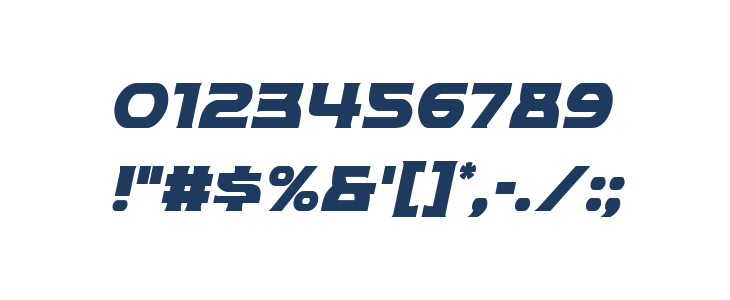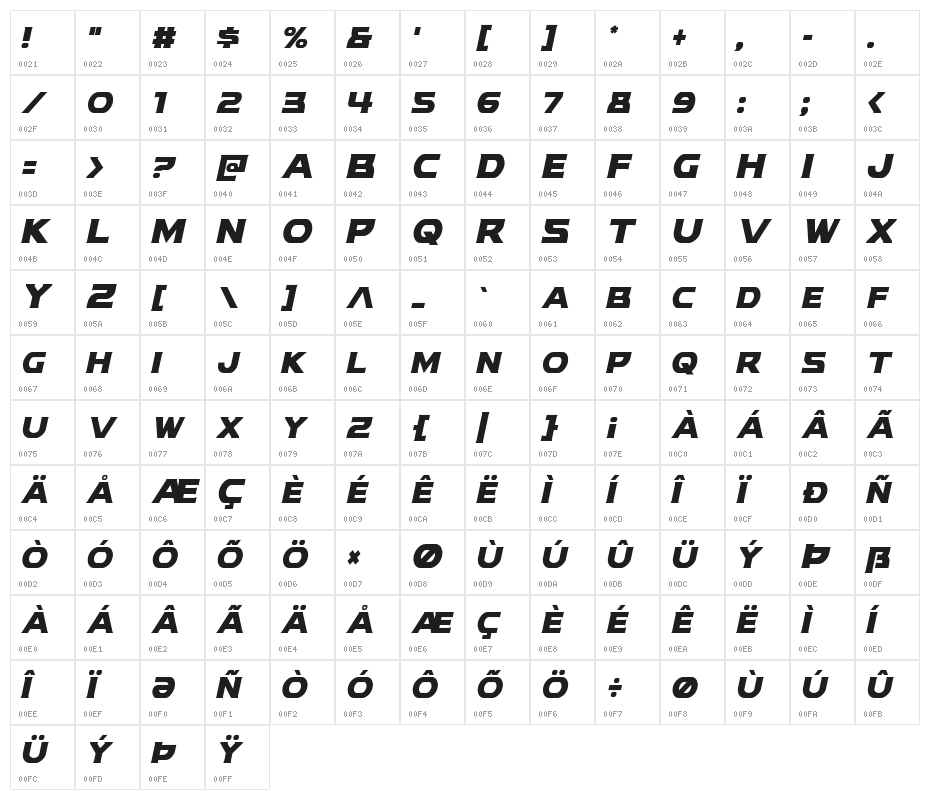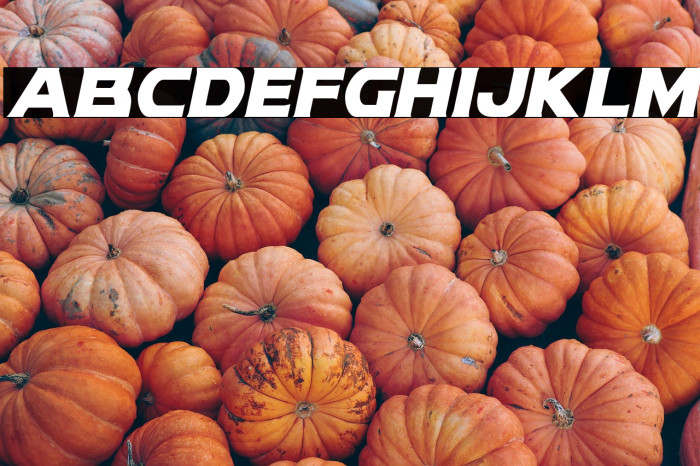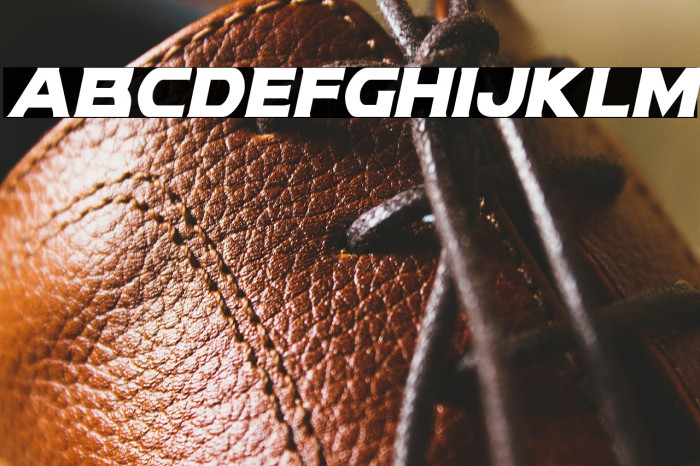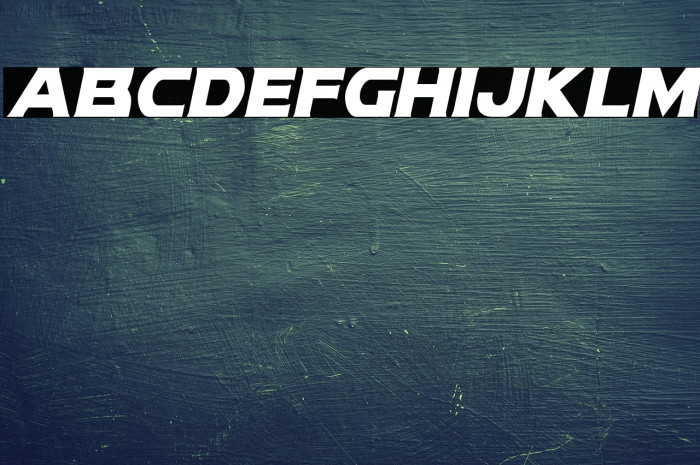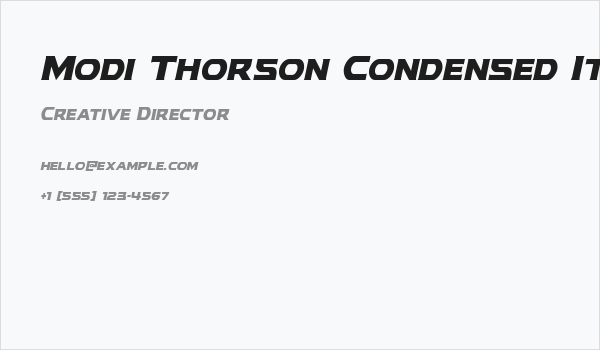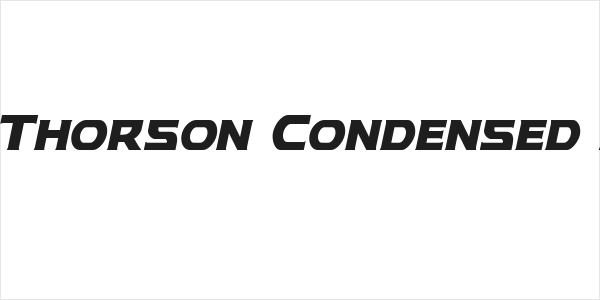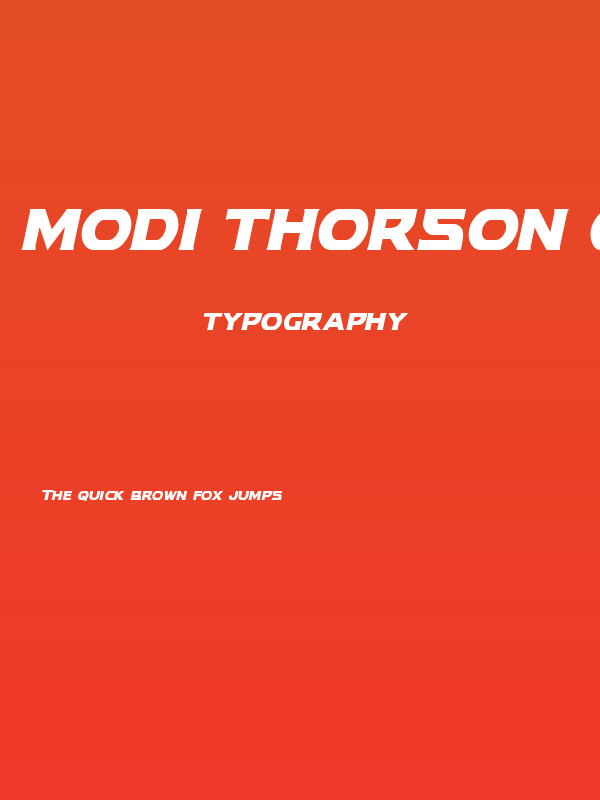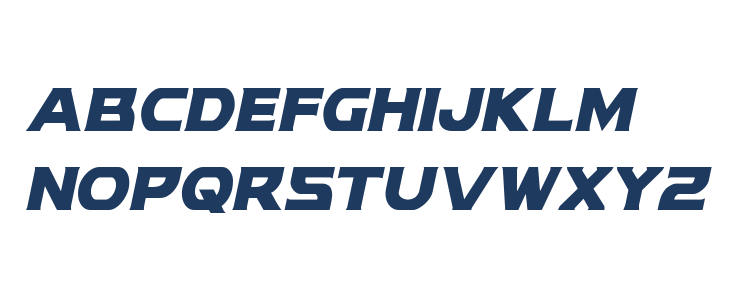
Modi Thorson Condensed Italic Font
Modi Thorson Condensed Italic Description
This font features a bold and dynamic design with a strong italic slant, giving it a sense of movement and energy. The characters are condensed, which makes them ideal for fitting more text into a limited space while maintaining readability. The strokes are thick and consistent, providing a uniform appearance across all characters. The font includes a full set of uppercase and lowercase letters, numbers, and a variety of special characters, making it versatile for different types of projects. Its modern and sleek style is suitable for contemporary designs.
| Proposed Projects | Ideal for sports branding, dynamic posters, modern advertisements, and any project requiring a bold and energetic typeface. |